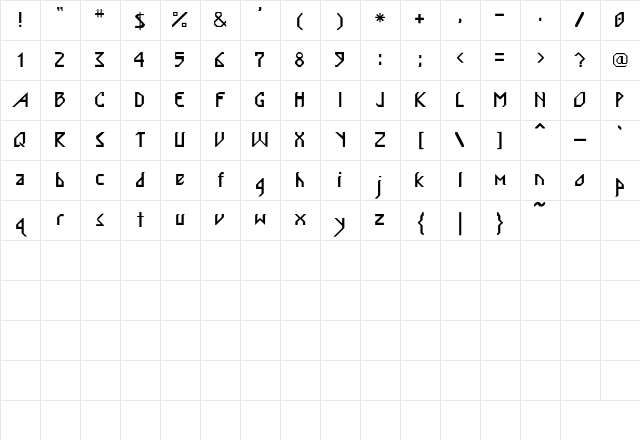
Scandi Regular
Design Context for Scandi
Scandi is a composed and adaptable typeface that performs quietly and consistently across a wide range of design contexts.